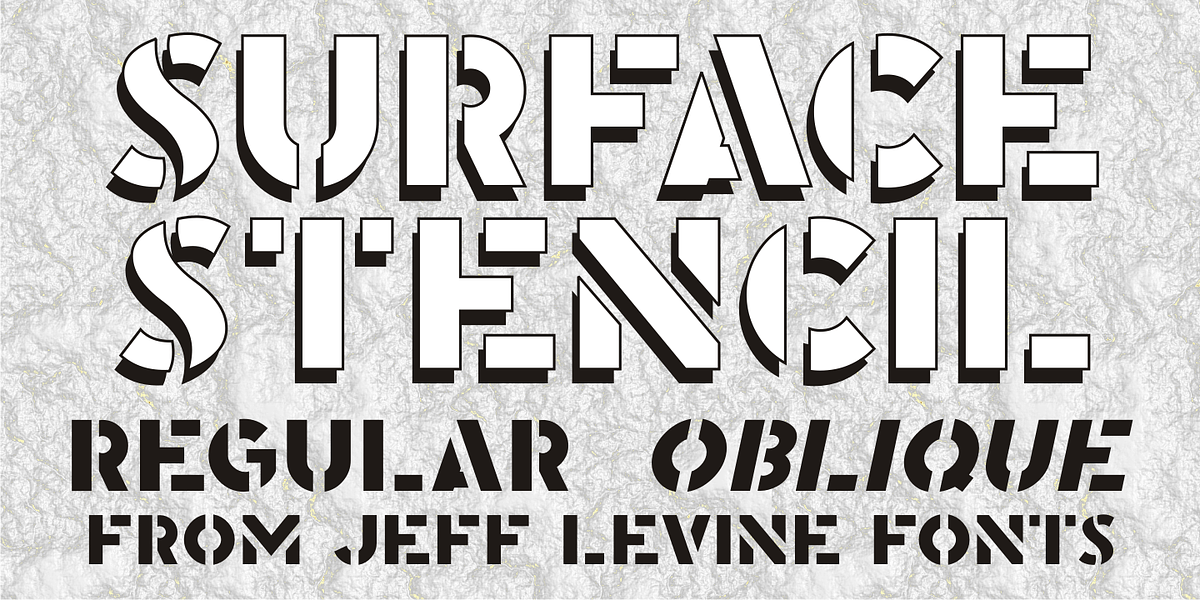
Surface Stencil JNL
A hand-cut antique brass stencil for marking barrel tops of dill pickles was the source of inspiration for Surface Stencil JNL, available in both regular and oblique versions.